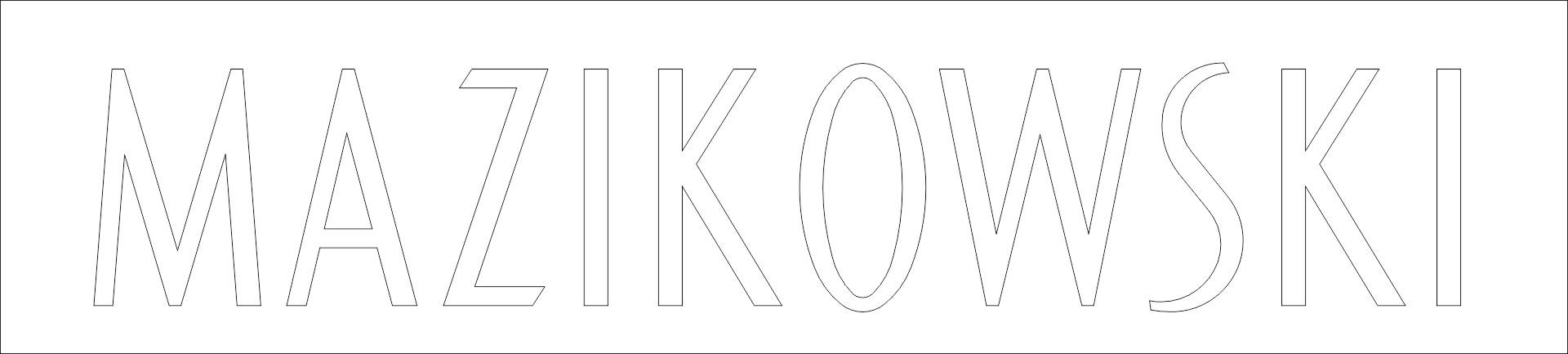
Hello, this is a version of the AICA-25 alphabet. It was originally part of a blueprint alphabet series, but now there are several digital versions used by various AICA members.